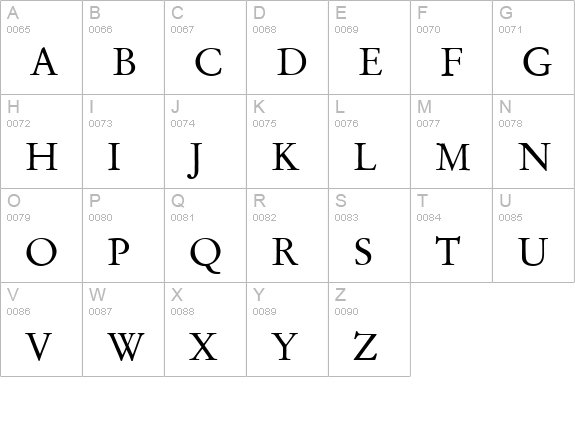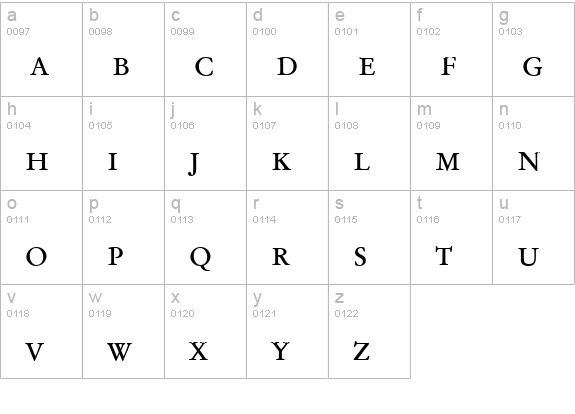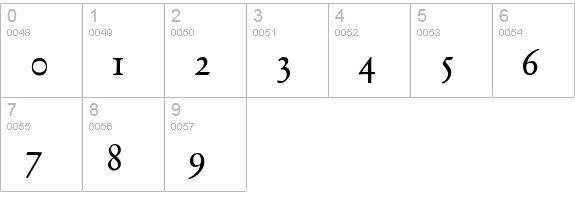
Garfeld-Original-Caps Font Details
Garfeld-Original-Caps font is a bold and eye-catching display typeface that exudes a sense of strength and confidence. With its distinctive uppercase characters and unique design elements, this font is perfect for making a statement in headlines, logos, posters, and more. What's even better is that Garfeld-Original-Caps font is completely free to download at FontsMarket.com! This means you can add this striking typeface to your collection without any cost, making it a valuable addition to your design resources. Don't miss out on the opportunity to enhance your projects with the impactful style of Garfeld-Original-Caps font, available for free download now at FontsMarket.com.